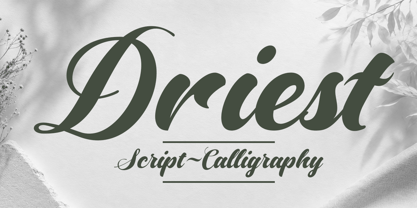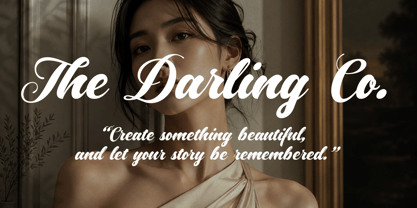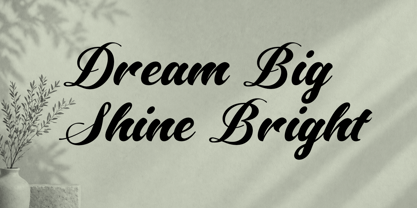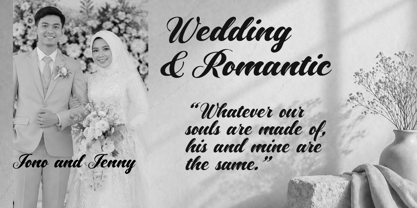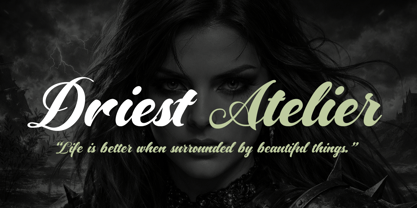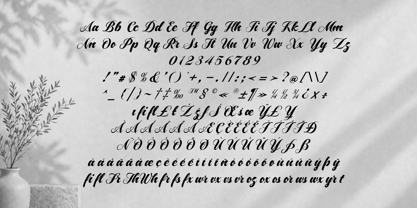
Driest
by Groen Studio
The Driest Font Family was designed by Roiyani Teungku and published by Groen Studio. Driest contains 1 styles. More about this family
Driest is an elegant and expressive script font designed to bring a refined handwritten character to your creative projects. With its smooth flowing strokes, stylish letterforms, and sophisticated appearance, Driest creates a beautiful balance between modern elegance and timeless calligraphy.
Perfect for logos, branding, wedding invitations, stationery, packaging, fashion designs, posters, social media graphics, quotes, greeting cards, and editorial projects, Driest adds a personal and luxurious touch to every composition.
Its graceful curves and natural rhythm make it especially effective for headlines, signatures, short phrases, and elegant display typography. Whether you are creating a premium brand identity or a romantic invitation, Driest is designed to make your lettering stand out.
Designers: Roiyani Teungku
Foundry: Groen Studio